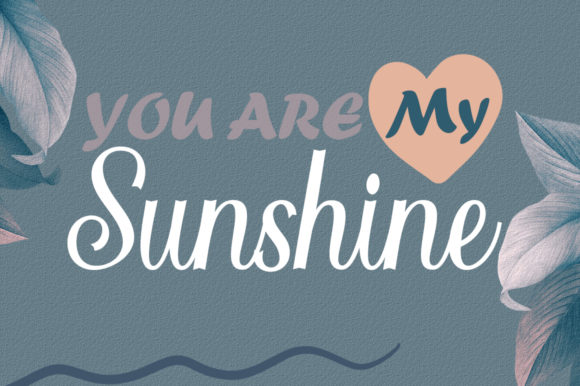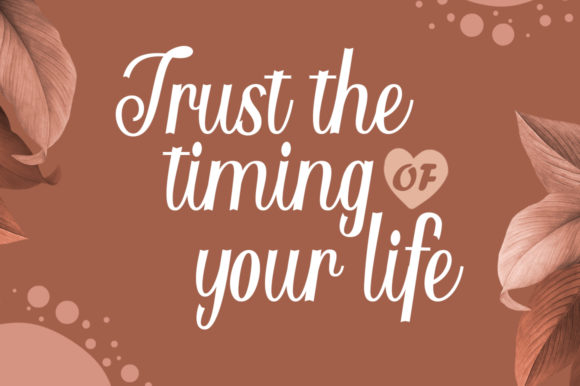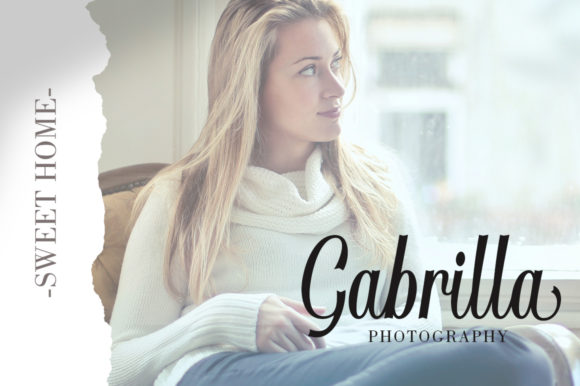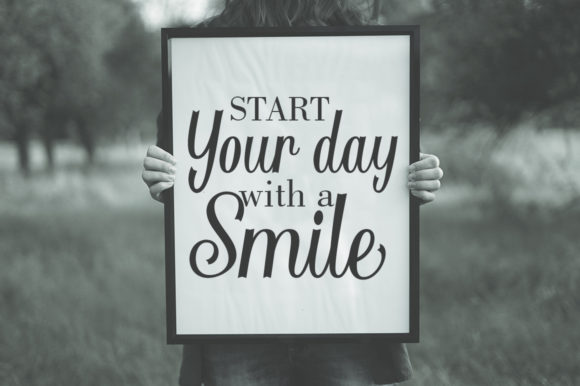
Discover the Elegance of Clara Bonitta Font: A Timeless Handwritten Script
In the world of typography, few fonts manage to capture the essence of elegance and timelessness as effectively as Clara Bonitta Font. This beautifully crafted handwritten font has been making waves among designers and crafters alike, and for good reason. Its versatile style, well-balanced characters, and exquisite features make it an ideal choice for a wide range of design projects. In this article, we’ll delve into the details of Clara Bonitta Font, exploring its unique characteristics, benefits, and uses.
A Versatile and Elegant Font
Clara Bonitta Font is an incredibly elegant and timeless handwritten font that boasts a versatile style, making it suitable for various design applications. Whether you’re working on a branding project, crafting a beautiful wedding invitation, or creating engaging social media content, this font is sure to impress. Its well-balanced characters ensure that your text remains clear and readable, even at smaller sizes.
One of the standout features of Clara Bonitta Font is its PUA (Private Use Area) encoding. This means that you can easily access all the glyphs and swashes, allowing you to add a personal touch to your designs. With PUA encoding, you can unlock a world of creative possibilities, from intricate flourishes to alternative characters.
Stunning Features
Clara Bonitta Font is packed with stunning features that elevate it above other handwritten fonts. Some of its notable features include:
- Varying Baseline: The font’s varying baseline adds a touch of organic elegance, giving your text a natural, handwritten feel.
- Smooth Lines: The smooth lines and curves of Clara Bonitta Font create a beautiful, fluid look that’s perfect for designs that require a touch of sophistication.
- Gorgeous Glyphs: The font comes with a range of gorgeous glyphs, including alternative characters, swashes, and ligatures.
- Stunning Alternates: Clara Bonitta Font offers stunning alternates, allowing you to add variety and interest to your text.
Clara Bonitta Font is a dream come true for designers and crafters. Its versatility and elegance make it an ideal choice for:
- Branding: Use Clara Bonitta Font to create stunning brand identities, including logos, business cards, and letterheads.
- Wedding Designs: The font’s elegant style makes it perfect for wedding invitations, save-the-date cards, and other wedding-related designs.
- Social Media: Add a touch of sophistication to your social media content with Clara Bonitta Font.
- Crafting: The font is also ideal for crafters, who can use it to create beautiful DIY projects, such as handmade cards, scrapbooking, and more.
In conclusion, Clara Bonitta Font is a truly exceptional handwritten font that offers a unique blend of elegance, versatility, and creativity. Its PUA encoding, stunning features, and well-balanced characters make it an ideal choice for designers and crafters looking to add a touch of sophistication to their designs. Whether you’re working on a branding project, wedding design, or social media content, Clara Bonitta Font is sure to impress.